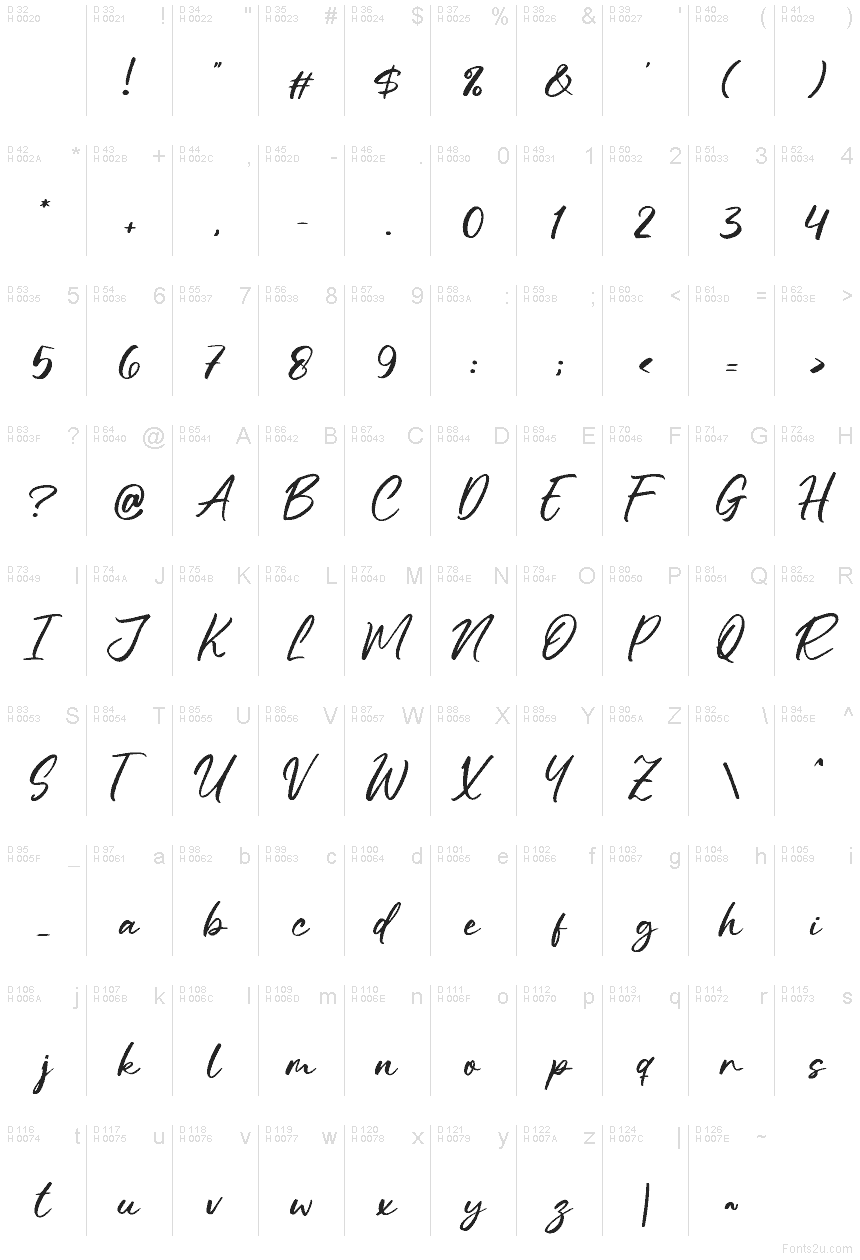
Alterday
Alterday font by Khurasan is a free handwritten script font that solves the “pretty but unreadable” problem. Its easy, forward slant and smooth brush rhythm feel spontaneous, yet the spacing stays open enough to read at a glance. Strokes have a soft inky taper—lively without turning messy—so titles feel warm and confident rather than fussy.
Using Alterday, you can bring a human touch to branding, boutique logos, product packaging, wedding invitations, social posts, and quote graphics. The flowing tempo carries attention through a line, while the clear forms keep messages crisp. This free font works beautifully with a clean sans for details; set it big and give it breathing room for maximum charm.